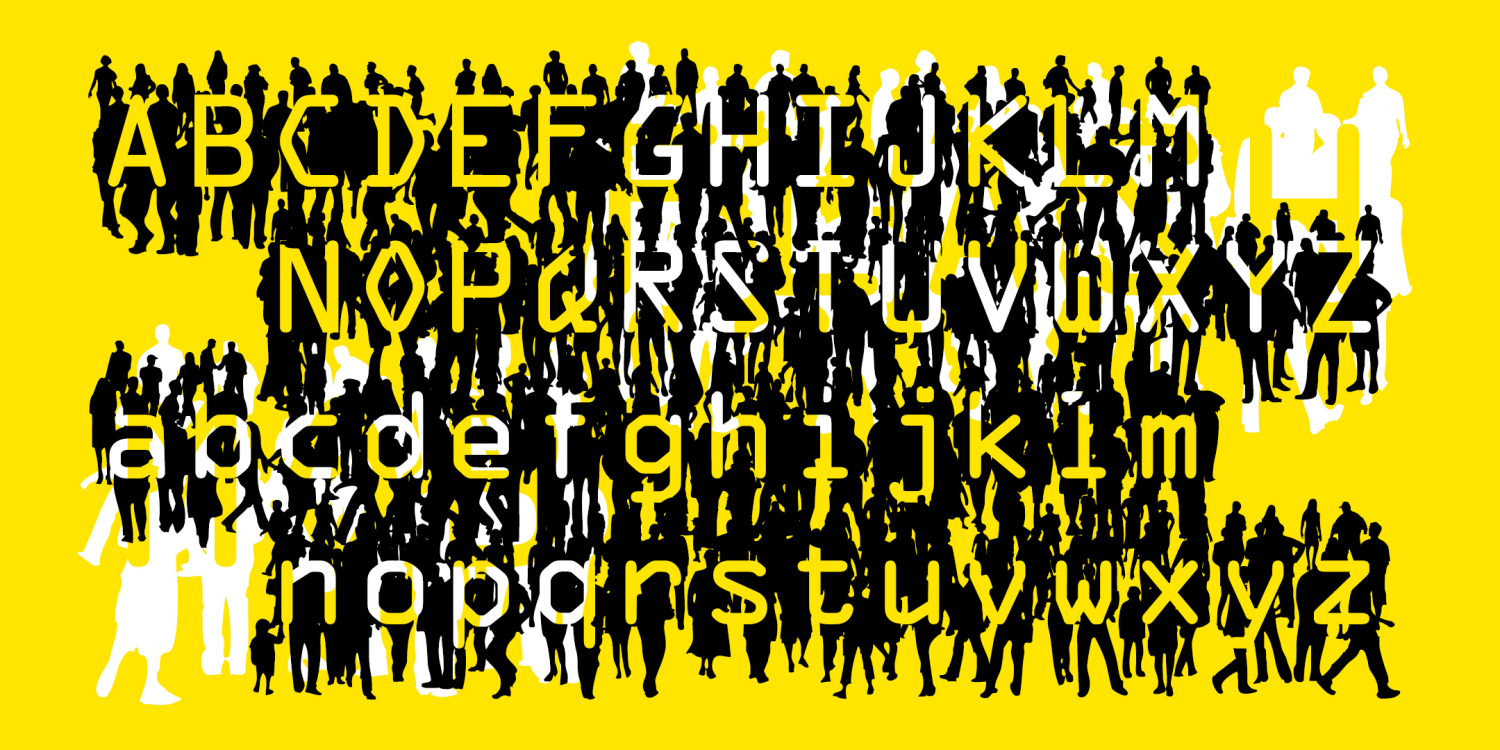
Flash Mob
FLASH MOB is a fun font that combines silhouettes of walking figures with letters inspired by a machine-readable font from 1960. As you type, a crowd appears!